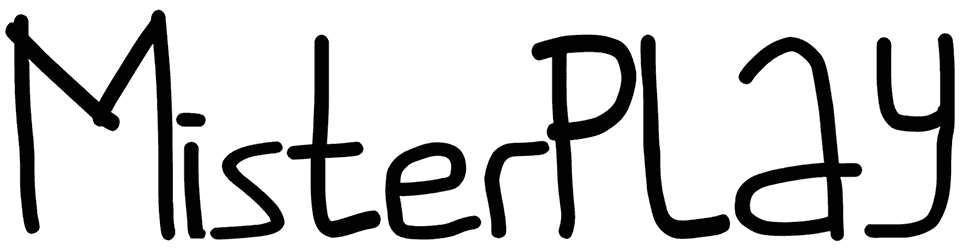
Misterplay Font
Are you looking for a cute and realistic outward to trim your distinct design? Misterplay, with a childish hand lettering style, can do this and lend your words a playful vibe. Even if there is no support for numbers and punctuation marks, this handwritten font can work well for a lot of items, from apparel to school posters.